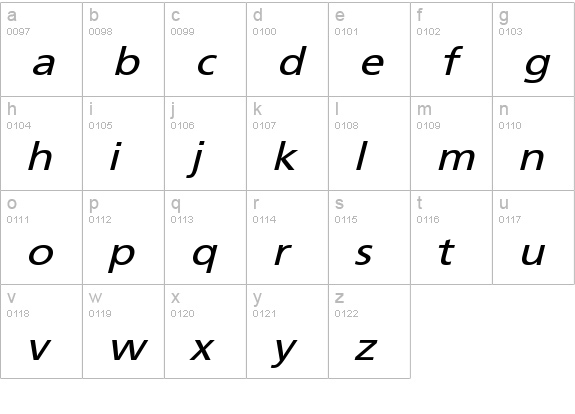
SchranerExtOb 2 Font Details
SchranerExtOb 2 is a stunning font that exudes elegance and sophistication. With its sleek and elongated letterforms, this typeface is perfect for adding a touch of modernity to any design project. The thin strokes and sharp angles of SchranerExtOb 2 create a sense of refined beauty that is both captivating and unique. This font is not only visually appealing but also incredibly versatile. Whether you're designing a logo, creating a wedding invitation, or crafting a headline for a magazine article, SchranerExtOb 2 will be the perfect choice to make your text stand out. One of the best parts about SchranerExtOb 2 is that it is free to download at FontsMarket.com. Yes, you read that right – this incredible font can be yours without spending a dime. FontsMarket.com is a trusted source for high-quality fonts, and they are proud to offer SchranerExtOb 2 as a free download. So why wait? Enhance your designs with the beauty and elegance of SchranerExtOb 2. Download it today from FontsMarket.com and let your creativity soar.